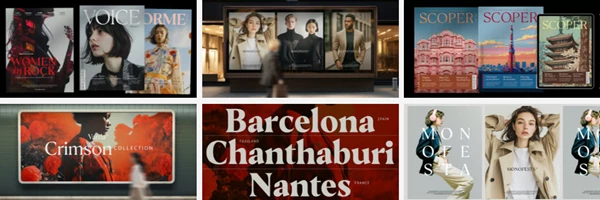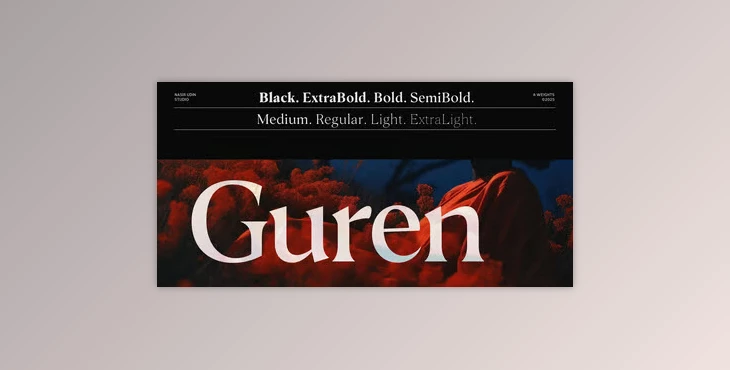
The Guren Font Family is an elegant, modern, flared serif typeface inspired by transitional and contemporary serifs. The Guren family boasts a striking stem contrast ratio that makes the texture appear elegant, coupled with a high x-height for legible typography.
This modern typeface is available in 16 styles, featuring eight weights in increasing order from ExtraLight to Black with respective matching italics. With an extended glyph set supporting more than 200 Latin-based languages, Guren is the ideal typeface for branding projects, headlines, titles, and short paragraphs.
Graphic or editorial designers would benefit from the versatility of the Guren Font Family, as it combines modern appeal with legibility.